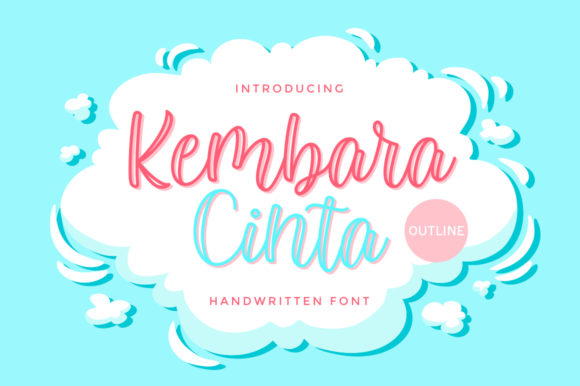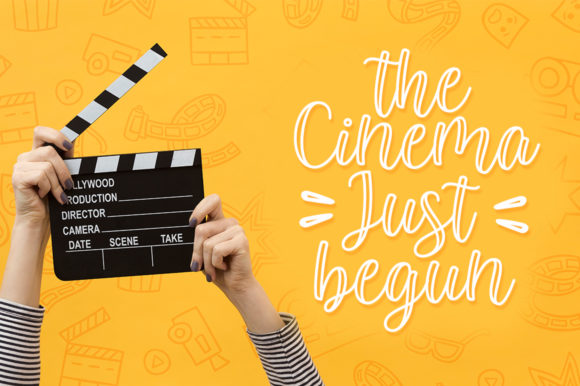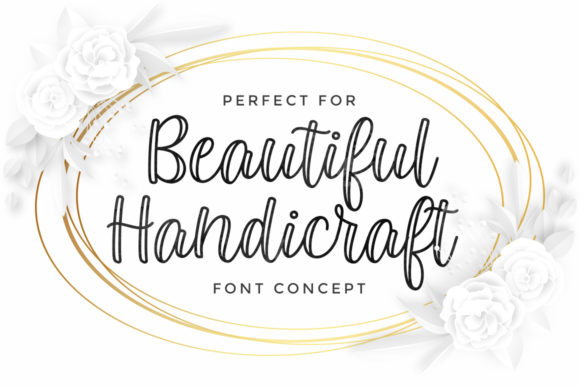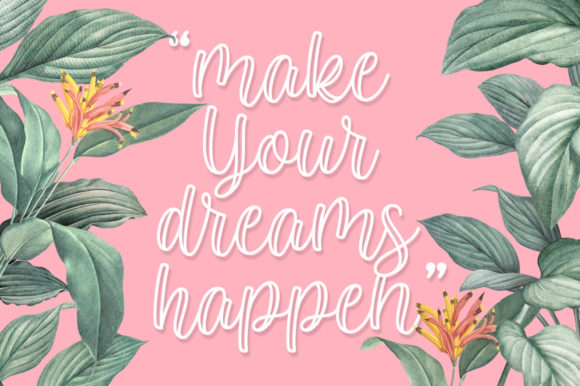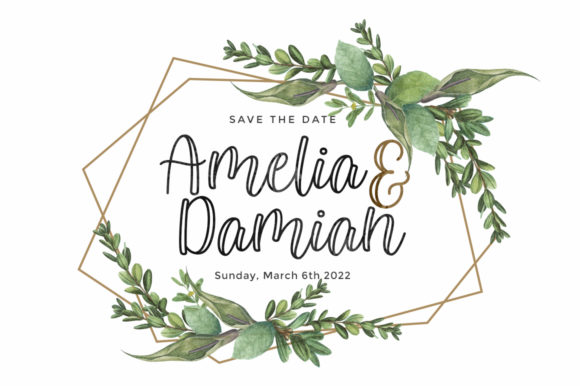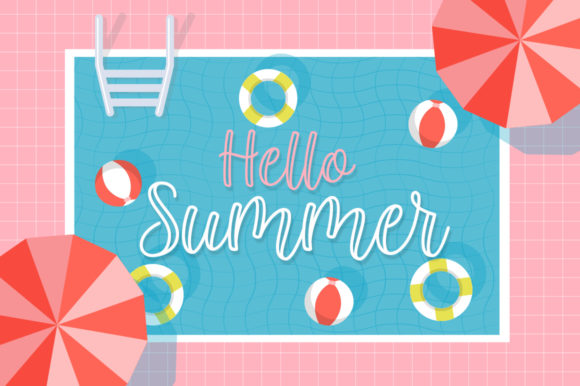
Kembara Cinta Outline Font
About Kembara Cinta Outline Font
Kembara Cinta Outline is a casual, fun handwritten font. Clean and a little bit quirky, this font is the perfect fit for all of your logos, branding, social media, and crafty DIY projects.